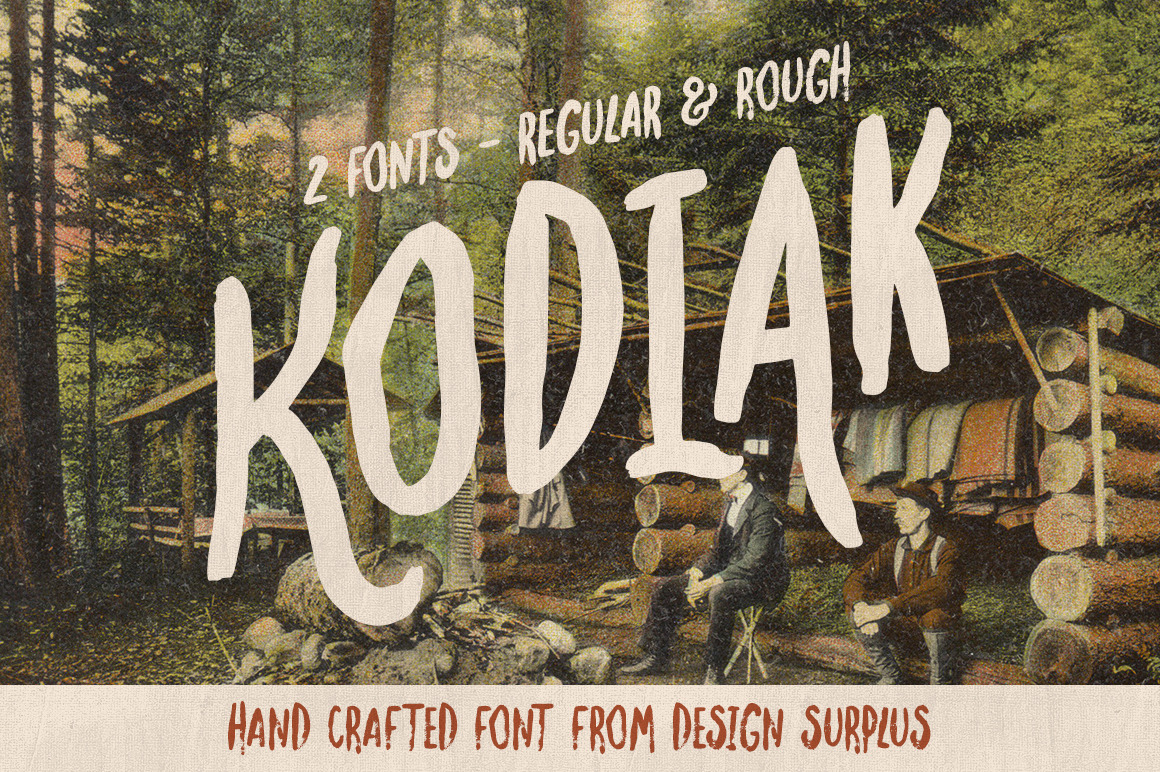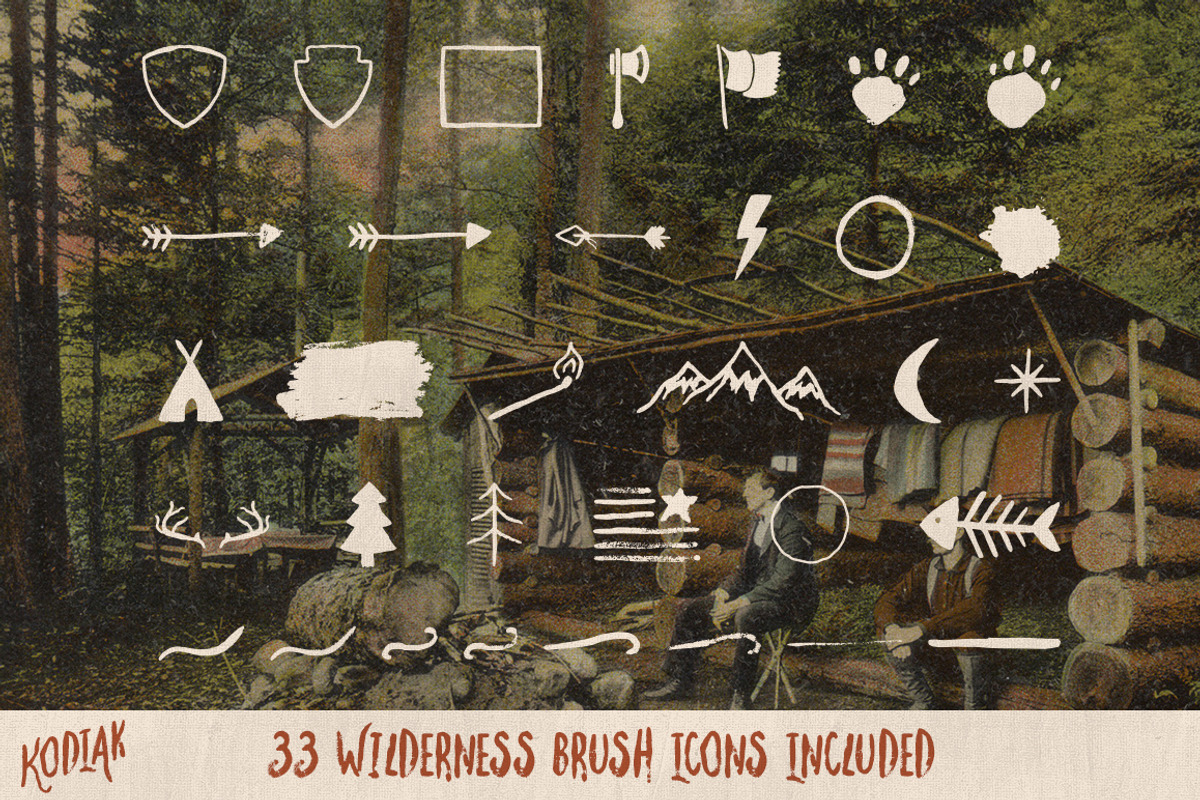
Kodiak Font (Regular + Rough)
Kodiak is made up of 2 fonts, regular and rough, that reflect the rustic beauty of the wild. A collection of 33 wilderness brush icons are included to compliment Kodiak.
KODIAK FEATURES
Kodiak is an uppercase brush font with a complete set of alternative letters. Lowercase keys give you the standard Kodiak whereas uppercase keys are a little fancier.
Kodiak comes 2 ways, Regular and Rough. Regular is as clean as a brush font from Design Surplus can get and Rough is exactly that.